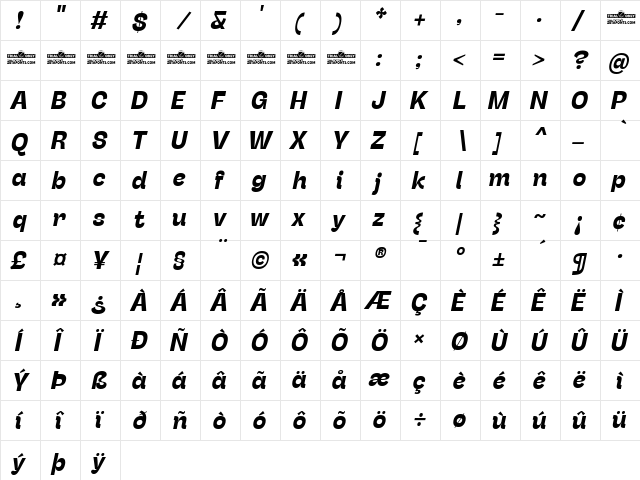
Stinger Trial Bold Italic
| Foundry | Studio Kmzero & Zetafonts |
| Designer | Cosimo Lorenzo Pancini |
Design Context for Stinger Trial Typeface
Stinger Trial offers clean, dependable letterforms without strong stylistic allegiance, making it a practical choice for designers who need flexibility. The slanted form adds forward momentum and visual energy. Its bold stroke weight gives it real presence on the page.